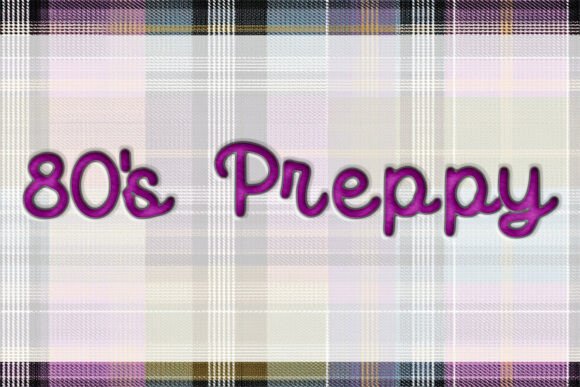
Get Ready to Channel Your Inner ’80s Cool
Who hasn’t at some point stared blankly at a blank document, trying to come up with the perfect font to make their design truly pop? It’s that moment of pure creative agony, when every font seems to be just… meh. But what if you could tap into the nostalgia of the past, and bring a touch of retro sophistication to your work? That’s where the ’80s Preppy Font comes in – a font that’s equal parts bold, stylish, and utterly charming.
Perfect for designers looking to make a statement, the ’80s Preppy Font is an ideal choice for advertising campaigns, logos, and branding endeavors. Its unique blend of vintage and modern flair makes it a valuable addition to any designer’s toolkit, and a great way to add some personality to your work.
Key Features of 80’s Preppy Font
- Font Style: A distressed, retro-style font with a preppy feel, reminiscent of the 1980s.
- Unique Characteristics: Distressed texture, subtle gradient effects, and irregular letterforms that evoke a sense of nostalgia and retro charm.
- Font Weight: Available in regular and bold weights, allowing for flexibility in design applications.
80’s Preppy Font Review
Overall, I think the 80’s Preppy Font is a fun, nostalgic choice for any design project. It has a certain charm that can evoke memories of the past. ✨
- The font’s unique character set is a big plus. It features fun, decorative elements that can add personality to your design.
- The font is highly legible, making it a great choice for body text or headlines.
- The 80’s Preppy Font is highly customizable, allowing you to adjust the font size, color, and style to suit your needs.
- ⚠️ The font’s boldness can sometimes feel overwhelming, making it difficult to read in large quantities.
- ⚠️ The font may not be the best choice for formal or professional projects, as it has a playful, retro vibe.
Overall, I think the 80’s Preppy Font is a great choice for designers looking to add some personality and whimsy to their projects. Just be aware of its limitations and use it judiciously. With the right design, this font can be a real showstopper. ✨
The 80’s Preppy Font is ideal for:
- Creating retro-inspired designs.
- Adding a touch of nostalgia to your designs.
- Designing invitations, posters, and flyers for 80’s themed events.